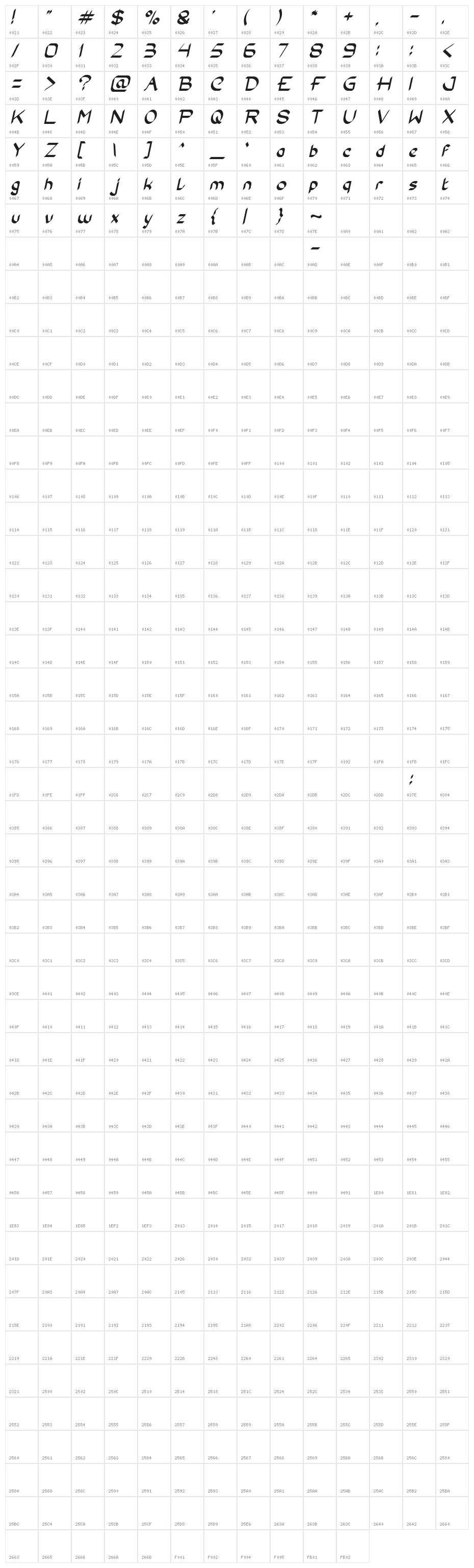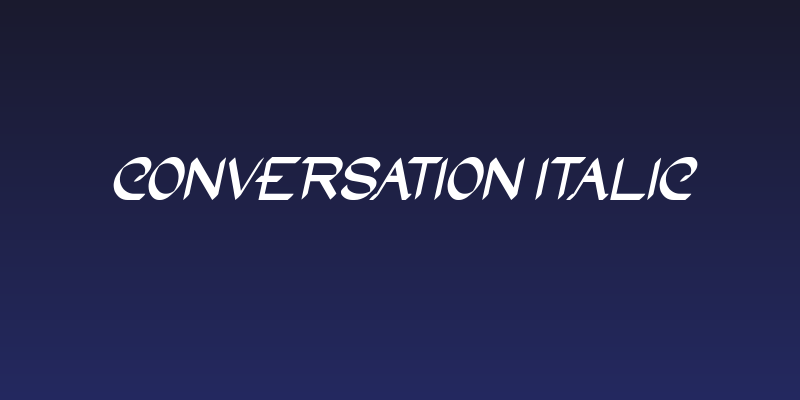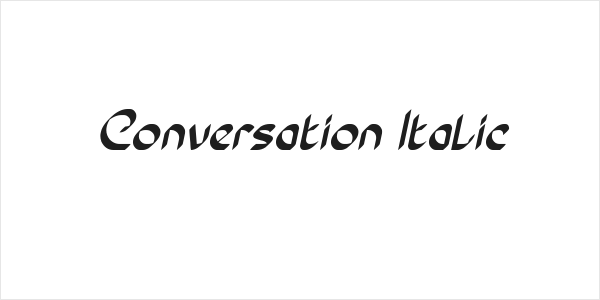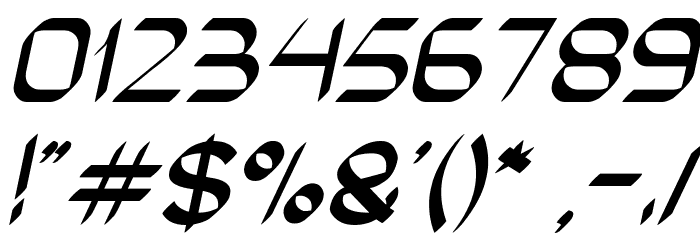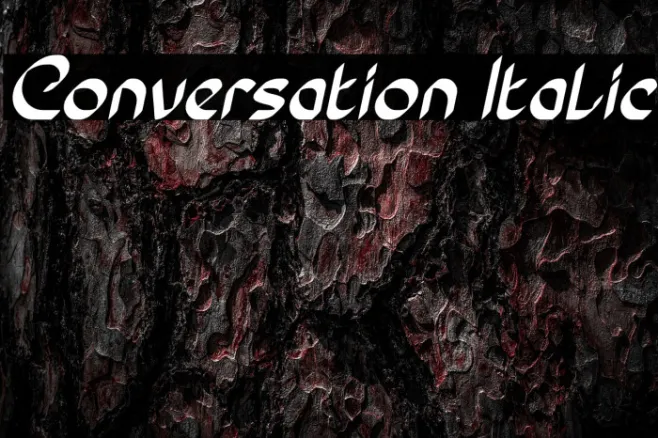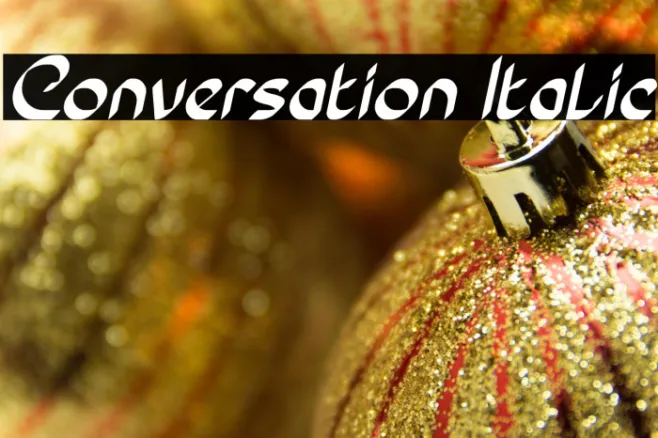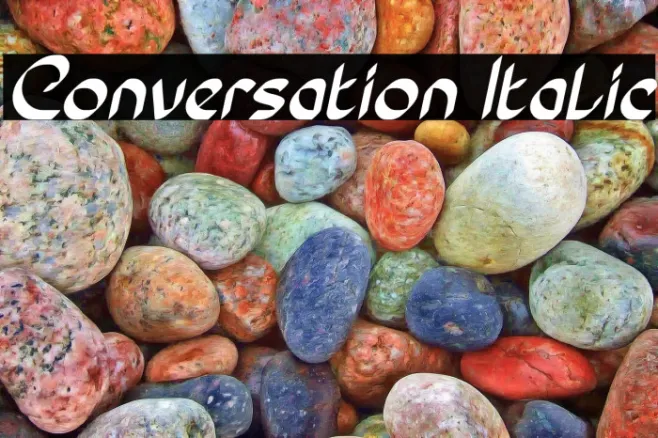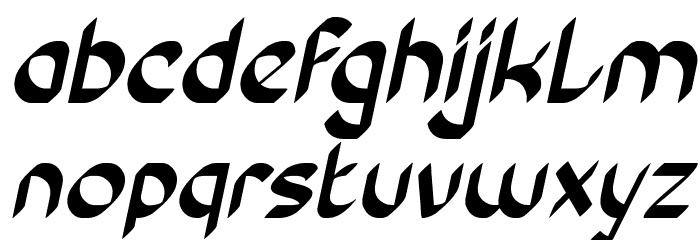
Conversation Italic Font
Conversation Italic Description
This font features a dynamic and modern italic style with a forward-leaning slant, giving it a sense of motion and energy. The characters are bold and slightly condensed, with sharp angles and clean lines that create a sleek and contemporary appearance. The uppercase and lowercase letters maintain a consistent style, while the numerals and special characters complement the overall design. The font's distinctiveness lies in its angular cuts and streamlined forms, making it suitable for projects that require a bold and modern aesthetic.
| Proposed Projects | Ideal for sports branding, dynamic posters, modern advertising, and digital media projects. |